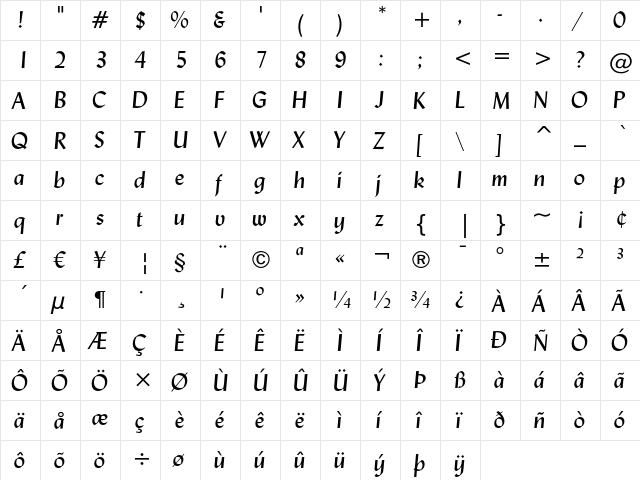
Lydian Italic
Design Context for Lydian Typeface
Lydian takes a measured approach to typography — its balanced proportions and neutral character make it a reliable workhorse for both digital and print work. Its italic angle brings a sense of urgency and motion to the letterforms.